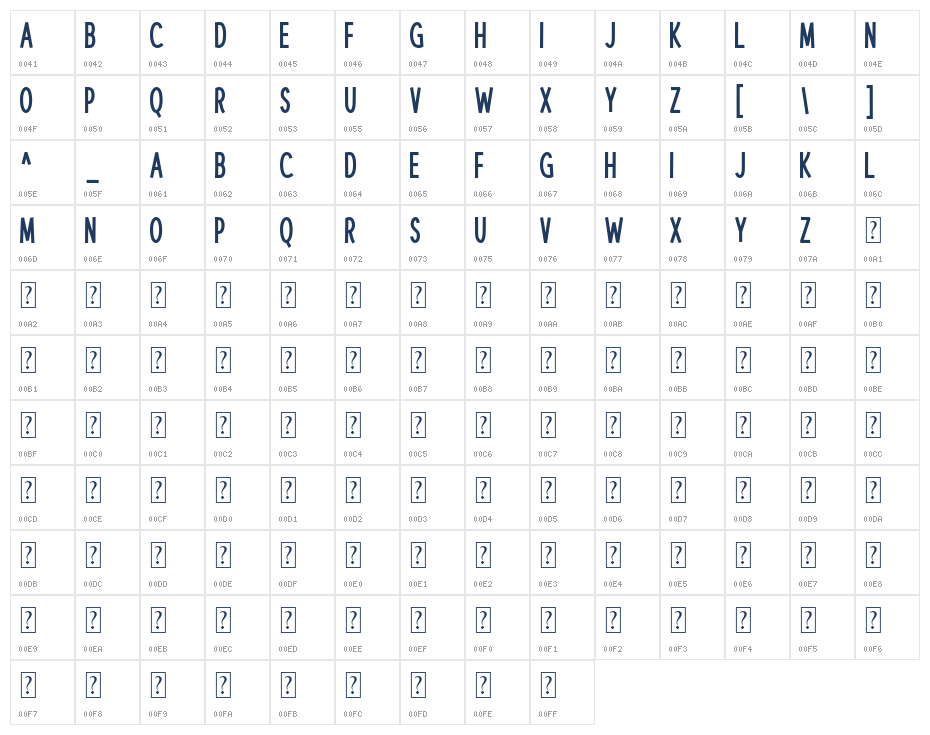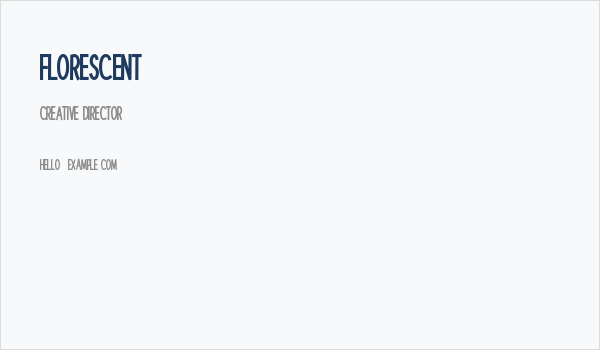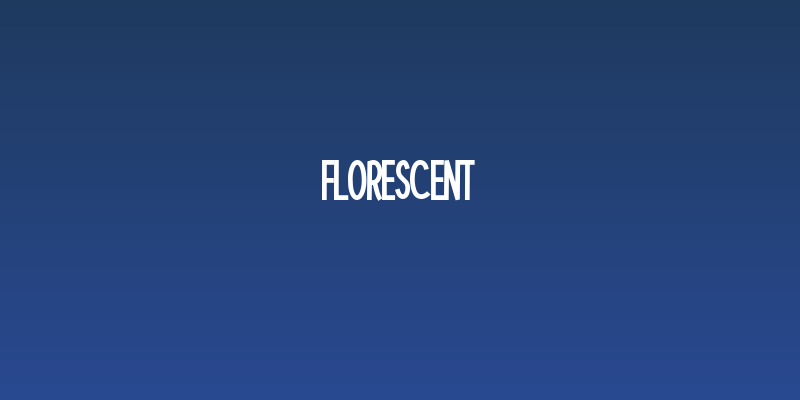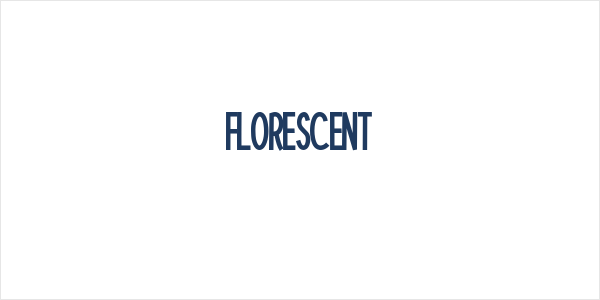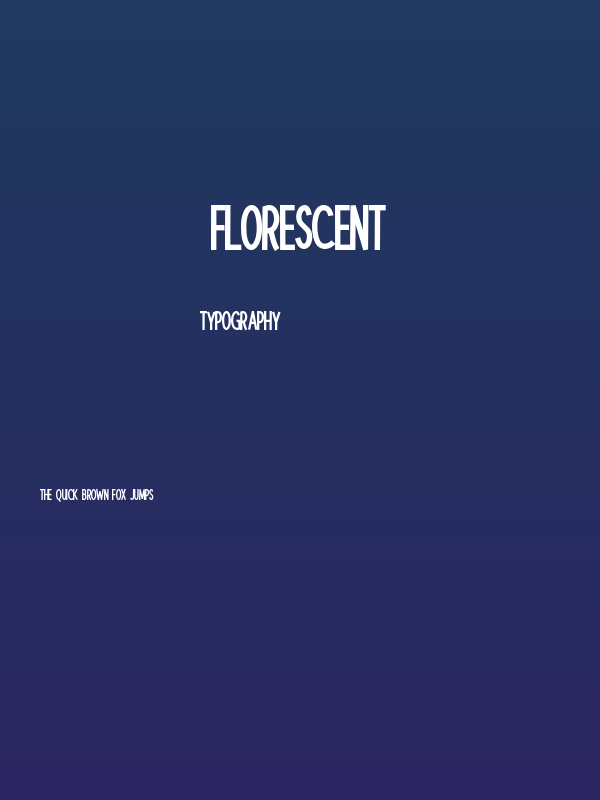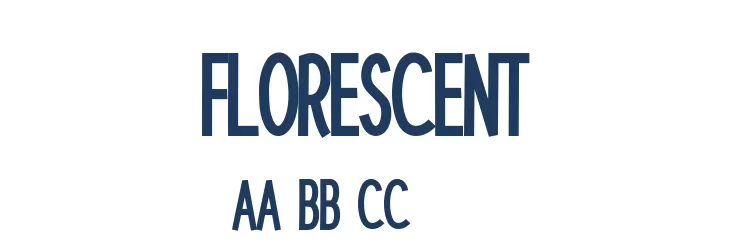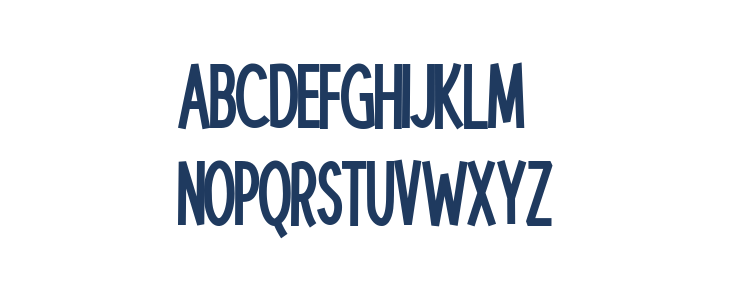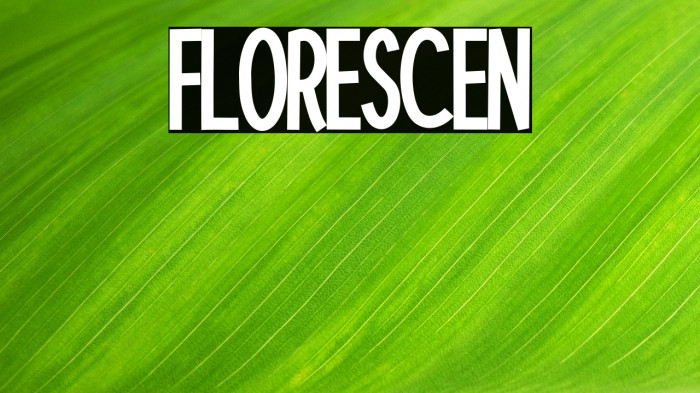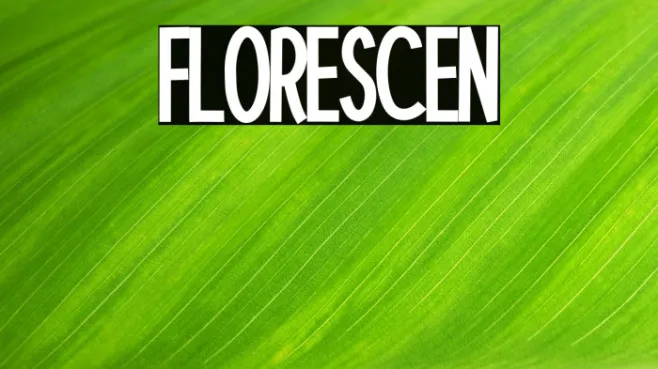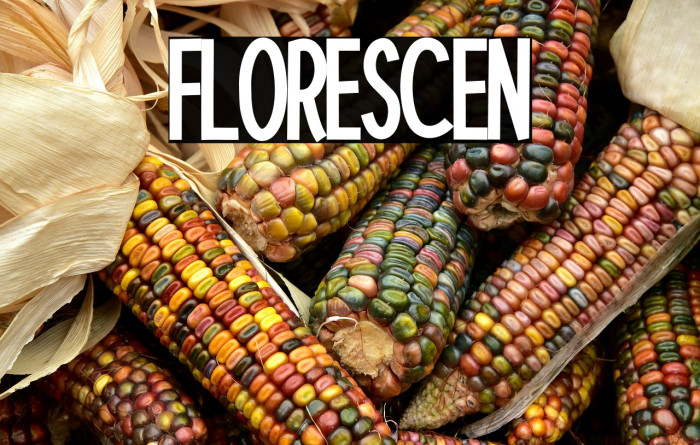
Florescent Font
Florescent Description
A playful, bold, and slightly irregular sans-serif font with a casual, hand-drawn appearance.
| Overall Style | Casual, Playful, Hand-drawn |
| Use Case | Headlines, Posters, Children's books, Logos |